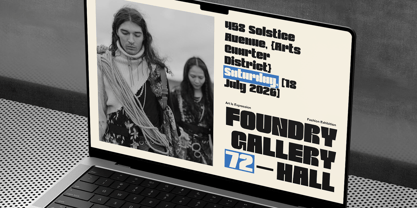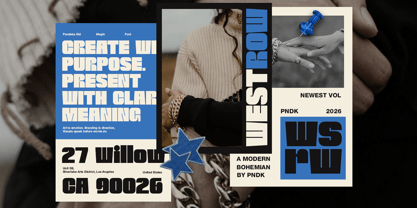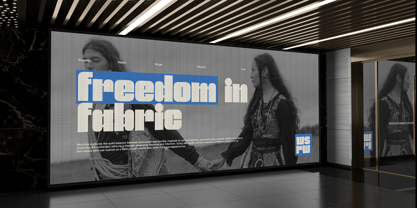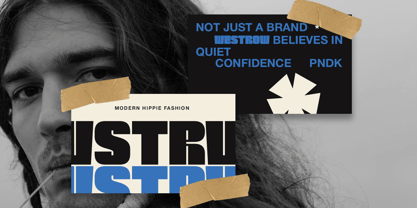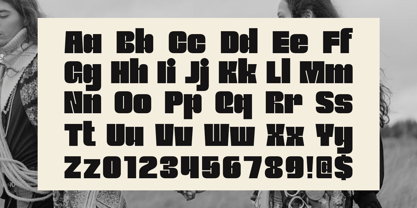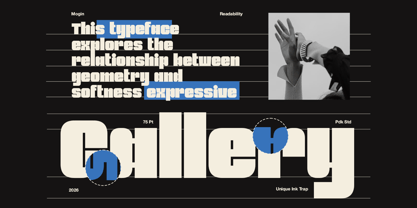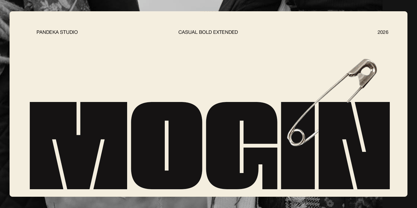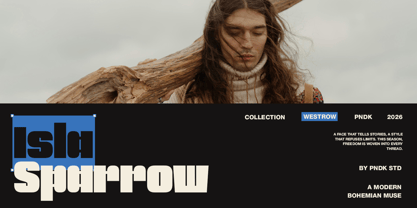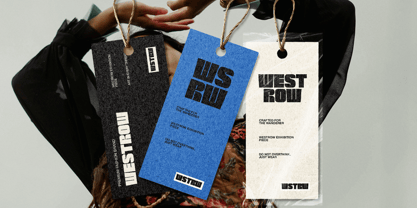
Mogin
by Pandeka Studio
The Mogin Font Family was designed by Sagara Nararya and published by Pandeka Studio. Mogin contains 1 styles. More about this family
Mogin is a casual bold extended display font designed to create strong visual impact with a relaxed and modern personality. Its wide letterforms and bold structure give your typography a confident, expressive, and contemporary look, making it perfect for standout headlines and creative branding.
Available in 1 style: Regular, Mogin includes uppercase, lowercase, numbers, punctuation, and multilingual support. Its extended style makes it ideal for editorial titles, posters, fashion branding, streetwear graphics, magazine layouts, advertising campaigns, social media visuals, and bold creative projects.
Designers: Sagara Nararya
Foundry: Pandeka Studio